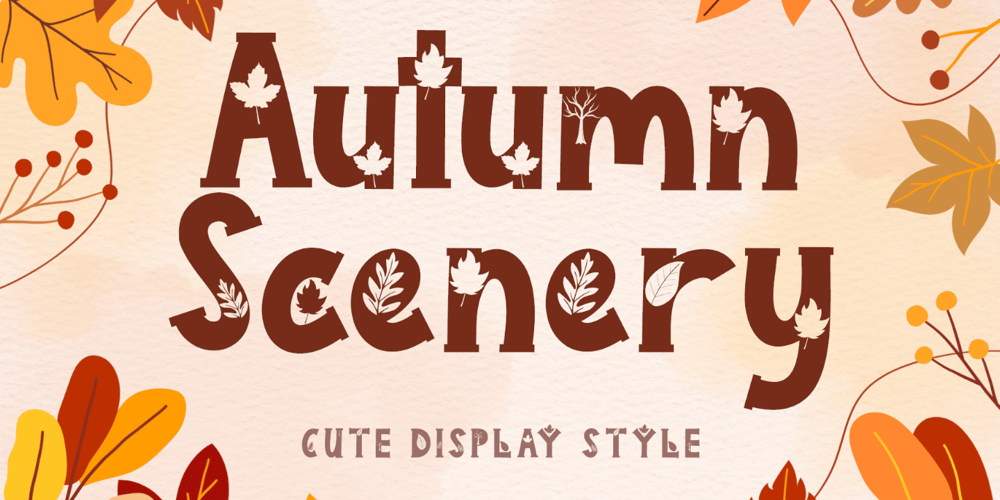
Autumn Scenery Font Family was designed by Isroni Yoga Prasetya and published by Yoga Letter. Autumn Scenery contains 1 styles and family package options. “Autumn Scenery” is a beautiful and unique display font. This font is equipped with uppercase, lowercase, numerals, punctuations and multilingual support. It is very suitable for autumn, fall, thanksgiving, halloween, invitations, christmas, valentine, back to school, logos, banners, branding and others.